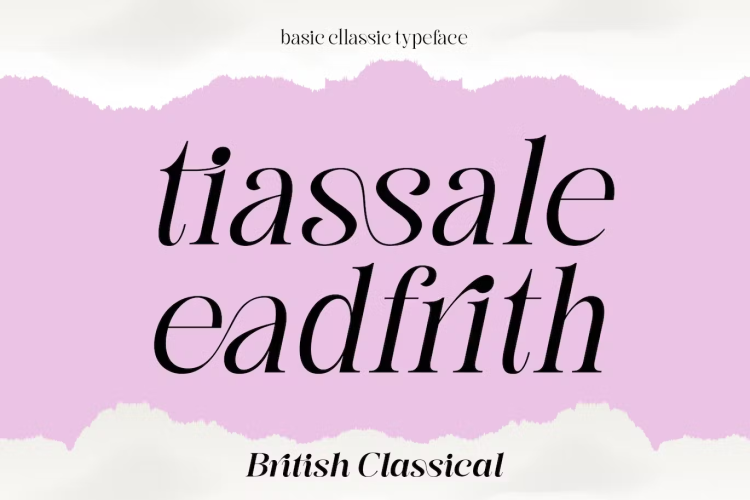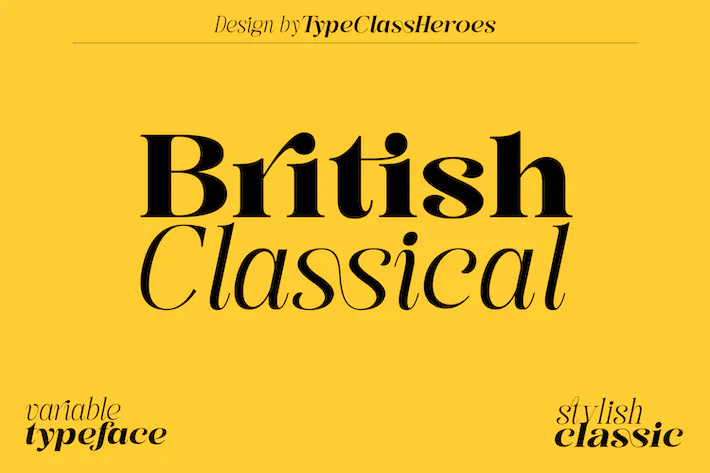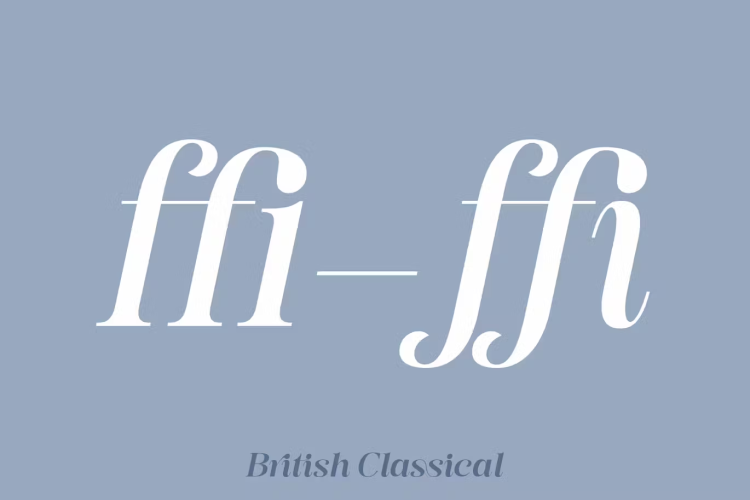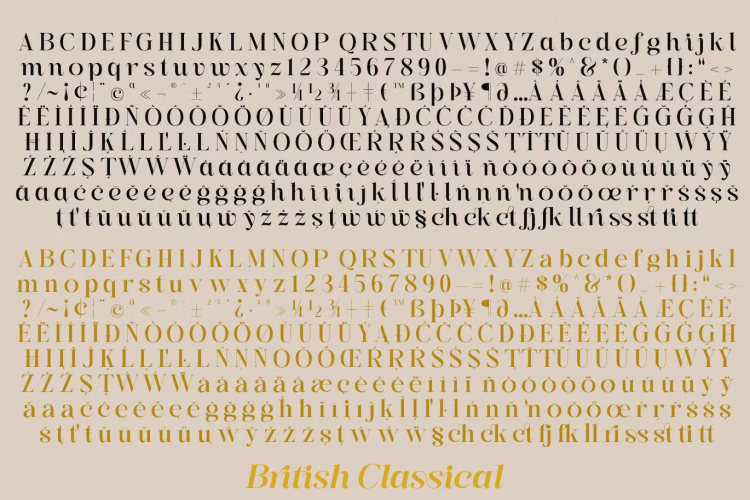
British Classical Font
Really excited to introduce British Classical and British Classical Neue is a Classic feat Modern serif family. It’s clean and smooth with 3 variable weight combining the regular and italic and much alternative inside. Suitable to create any branding, product packaging, invitation, quotes, label, poster, logo etc.
Where British Classical Font works best
British Classical Font gives long-form text a classic, trustworthy rhythm — ideal for magazine spreads, annual reports and book interiors.
Pair British Classical Font with generous letter-spacing for wordmarks in fashion, hospitality, wine and jewellery branding.
Use British Classical Font for slide titles in Keynote, PowerPoint or Google Slides to add authority without looking dated.
What is British Classical Font good for?
British Classical Font is a Serif Fonts typeface tagged Branding, Classic, Clean, Modern. It works well for headlines, logos, posters, social media graphics and branding projects that need a distinctive serif fonts look.